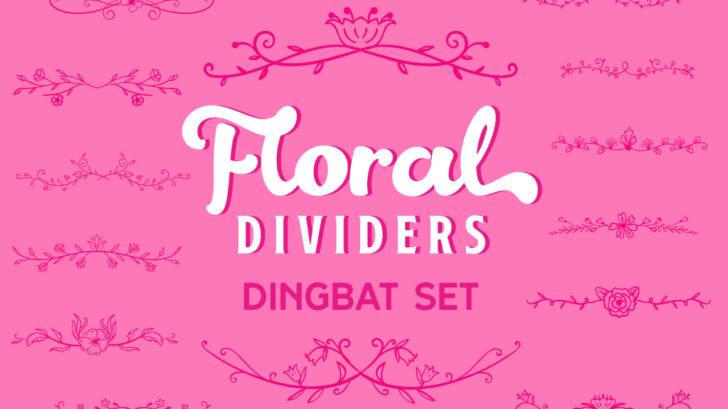
About Floral Dividers Dingbat Set Font
This hand drawn set of floral dividers will complete all your creative designs! This Floral Dividers Dingbat Set comes with intricately designed dividers that can be used to add elegance and floral intrigue in both print and digital designs.